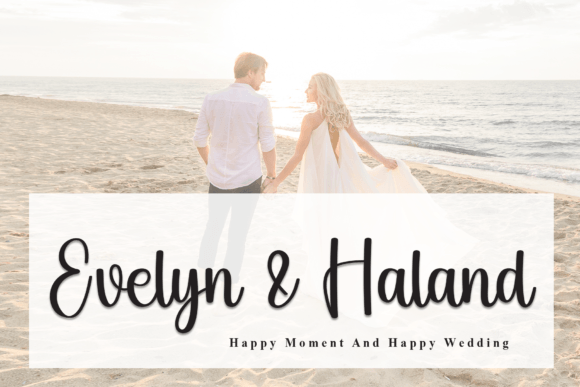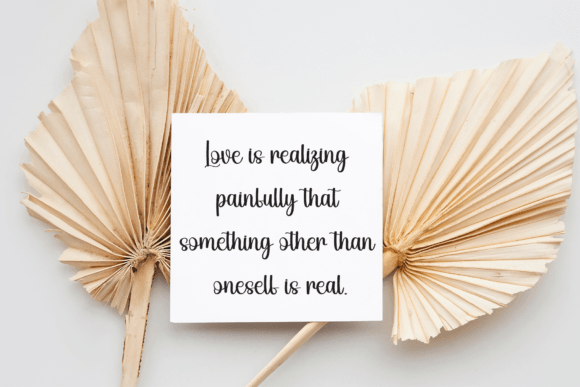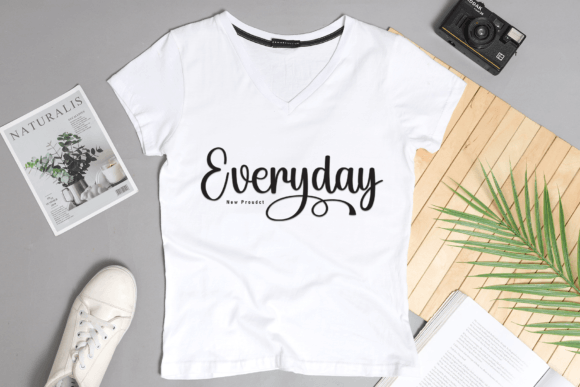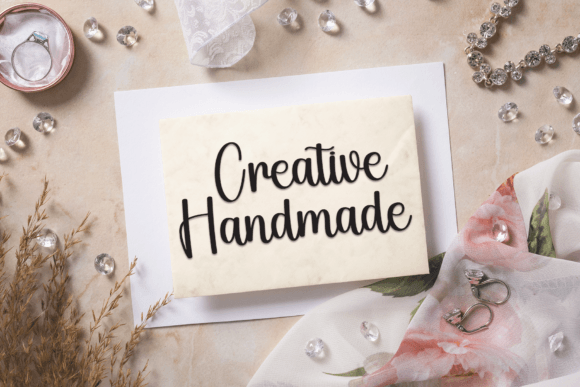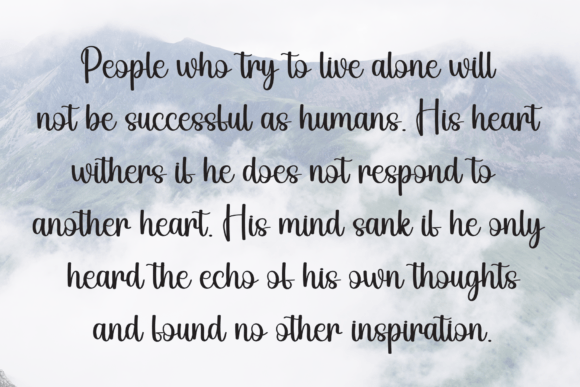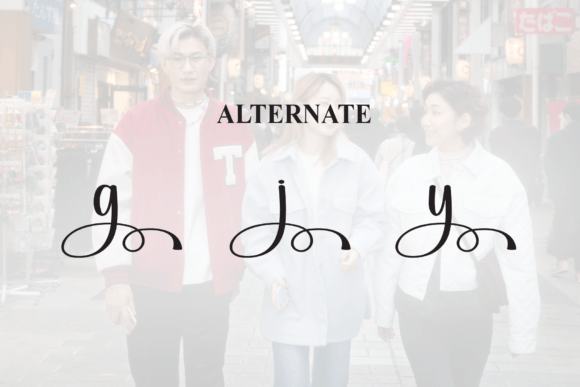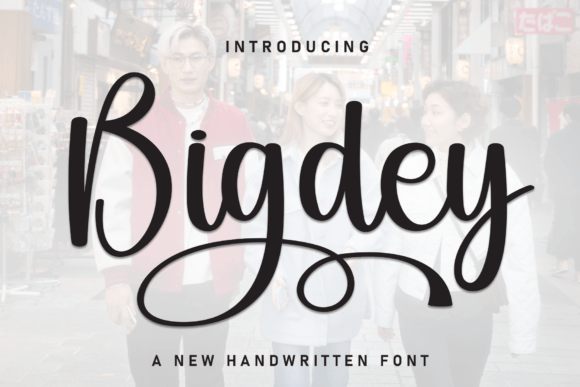
The Bigdey Font: Elevate Your Designs with Elegance and Style
I’ll never forget the time I was working on a wedding invitation project, and my client asked for a font that would make their special day feel truly unforgettable. I scoured the internet, tried out countless fonts, but nothing seemed quite right. That was until I stumbled upon the Bigdey font. With its stylish and incredibly elegant script, it was love at first sight! 💕
Bigdey is more than just a font – it’s a design statement. It looks stunning on wedding invitations, thank you cards, quotes, greeting cards, logos, business cards, and every other design that needs a handwritten touch. In this article, I’ll share my honest review of the Bigdey font, provide a practical guide on how to use it, and explore similar fonts that might tickle your fancy.
- ✅ Elegant and stylish script font that’s perfect for designs that need a personal touch
- ✅ Versatile and can be used for a wide range of design projects
- ✅ Beautifully crafted with attention to detail and a clear understanding of typography
- ⚠️ May not be suitable for very large or bold designs, as it can lose its elegance
- ⚠️ Limited availability of certain characters or glyphs, which can be a drawback for some users
The Story Behind Bigdey: Designer Inspiration
Bigdey was designed with the intention of creating a beautiful and elegant script font that would bring a personal touch to designs. The designer, who wishes to remain anonymous, drew inspiration from classic calligraphy and modern typography trends. The result is a font that’s both stylish and highly legible, making it perfect for a wide range of design projects.
Q: What type of designs is Bigdey best suited for?
A: Bigdey is perfect for designs that need a handwritten touch, such as wedding invitations, thank you cards, quotes, greeting cards, logos, and business cards.
Q: Is Bigdey a difficult font to use?
A: No, Bigdey is a relatively easy font to use, especially if you’re familiar with script fonts. It comes with a range of OpenType features, including ligatures and stylistic alternates, which can add more personality to your design.